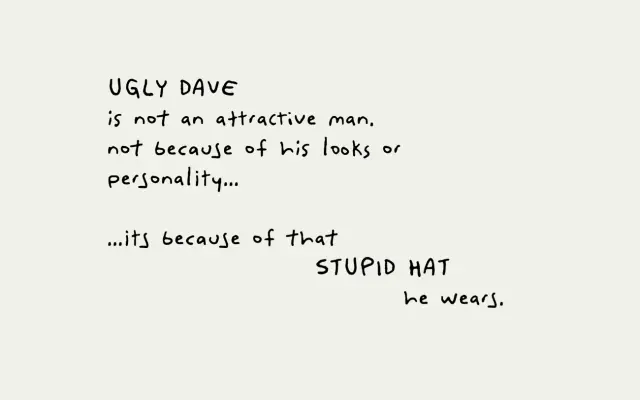
Ugly Dave
A deliberately messy handwriting font with over 500 glyphs and ligatures designed to mimic convincingly bad, childish script.
Comes in two styles, Regular and Alternates, each with distinct letterforms to maintain the illusion of genuine handwriting. With over 500 glyphs and ligatures, the character set is broad enough to avoid repetition and keep the casual, imperfect quality consistent. Despite the deliberate messiness, it remains legible at both large and small sizes.
An informal handwriting script designed to mimic bad, childish handwriting with deliberate messiness and imperfection throughout its letterforms.